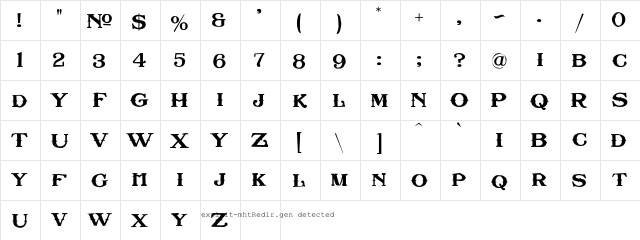
LHF Old Abe REGULAR Regular
| Foundry | John Studden for Letterhead Fonts |
| Designer | John Studden |
Design Context for LHF Old Abe REGULAR Typeface
LHF Old Abe REGULAR is a composed and adaptable typeface that performs quietly and consistently across a wide range of design contexts.